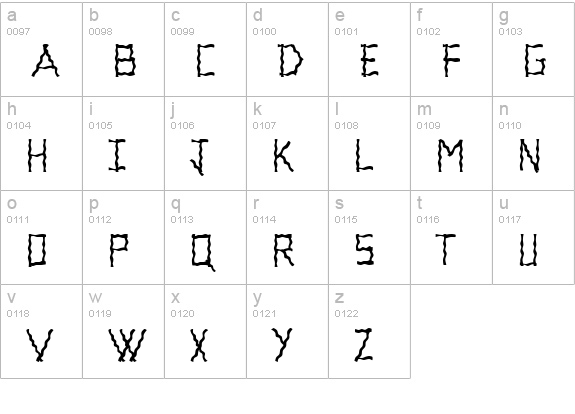
Rumpled Font Details
Rumpled font is a unique and playful typeface that brings a touch of whimsy to any design project. Its irregular, hand-drawn appearance gives it a charmingly rumpled look, perfect for adding a casual and friendly vibe to your creations. This font is versatile and can be used for a variety of purposes, from branding to social media graphics to product packaging. The best part? Rumpled font is completely free to download at FontsMarket.com. Yes, you read that right - you can get your hands on this delightful font without spending a dime. So why wait? Add a touch of character to your designs with Rumpled font today!